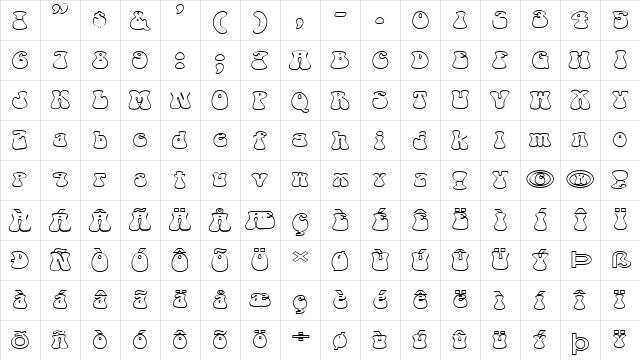
FZ JAZZY 14 HOLLOW EX Normal
Design Context for FZ JAZZY 14 HOLLOW EX
FZ JAZZY 14 HOLLOW EX is a composed and adaptable typeface that performs quietly and consistently across a wide range of design contexts.